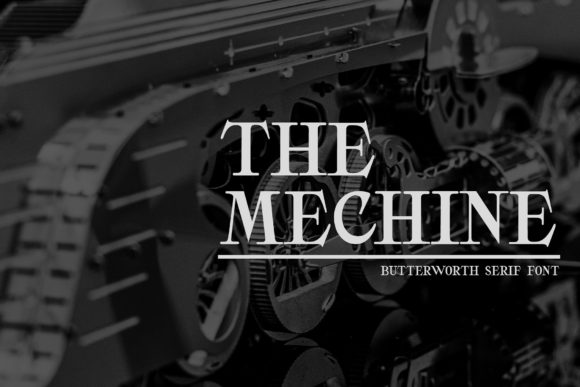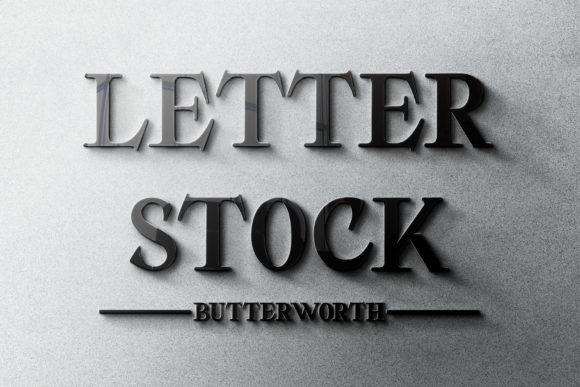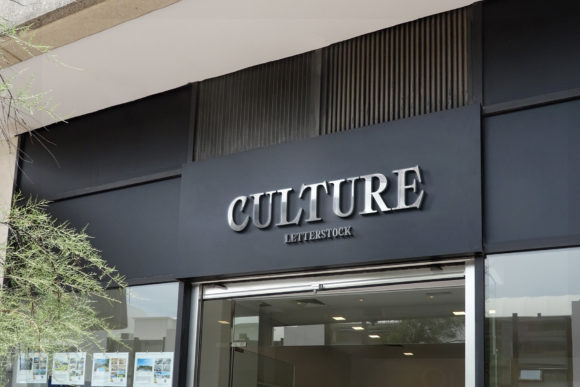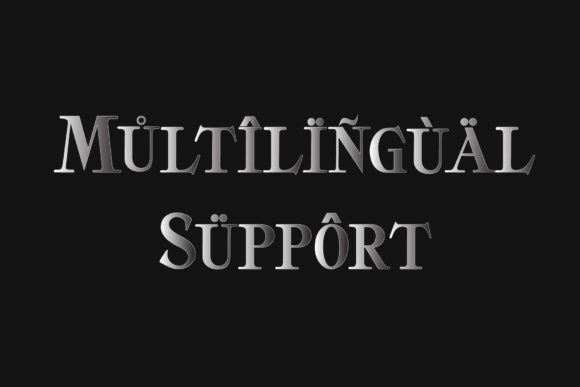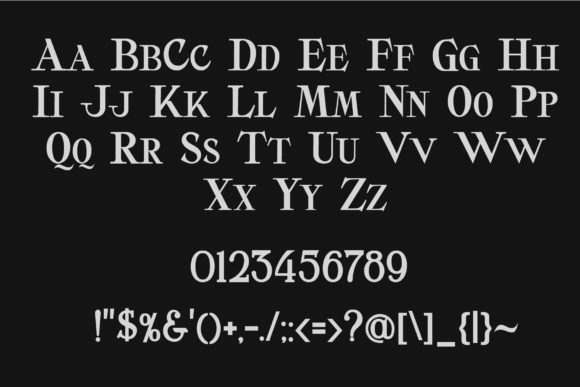
Introducing Butterworth Font: The Bold and Authentic Serif Choice
Are you a designer or crafter looking for a font that exudes confidence and sophistication? Look no further than the Butterworth font. This bold and authentic serif font is perfect for a wide range of applications, from branding and product packaging to invitations, quotes, t-shirts, labels, posters, and logos.
What is Butterworth Font?
Butterworth is a carefully crafted serif font that boasts a unique blend of classic and modern elements. Its bold and sturdy design makes it perfect for headlines, titles, and short paragraphs of text. The font’s authentic feel is achieved through its subtle imperfections and refined details, giving it a human touch that sets it apart from more generic fonts.
Key Features of Butterworth Font
- Bold and Authentic Design: Butterworth’s bold design ensures that your text stands out, while its authentic feel adds a touch of sophistication.
- Suitable for Various Applications: From branding and packaging to invitations and posters, Butterworth is versatile enough to be used in a wide range of projects.
- Easy to Read: Despite its bold design, Butterworth remains easy to read, making it perfect for both headlines and body text.
- Highly Versatile: Butterworth comes with a range of weights and styles, allowing you to experiment with different looks and feels.
Why Choose Butterworth Font?
So why choose Butterworth over other serif fonts? Here are just a few reasons:
- Unique Design: Butterworth’s unique blend of classic and modern elements sets it apart from more generic fonts.
- High-Quality Typography: Butterworth is designed with high-quality typography in mind, ensuring that your text looks professional and polished.
- Time-Saving: With Butterworth, you can achieve professional-looking results without spending hours searching for the perfect font.
How to Use Butterworth Font
Butterworth is incredibly easy to use, even for those new to design. Here are a few tips to get you started:
- Pair it with a Sans-Serif Font: Pair Butterworth with a sans-serif font for a classic and modern look.
- Experiment with Weights and Styles: Try out different weights and styles to find the perfect look for your project.
- Use it for Headlines and Titles: Butterworth’s bold design makes it perfect for headlines and titles.
In conclusion, Butterworth font is a bold and authentic serif font that is perfect for designers and crafters looking for a sophisticated and versatile typeface. With its unique design, high-quality typography, and ease of use, Butterworth is sure to become a go-to font for a wide range of applications. Whether you’re working on a branding project, product packaging, or a poster, Butterworth is the perfect choice.